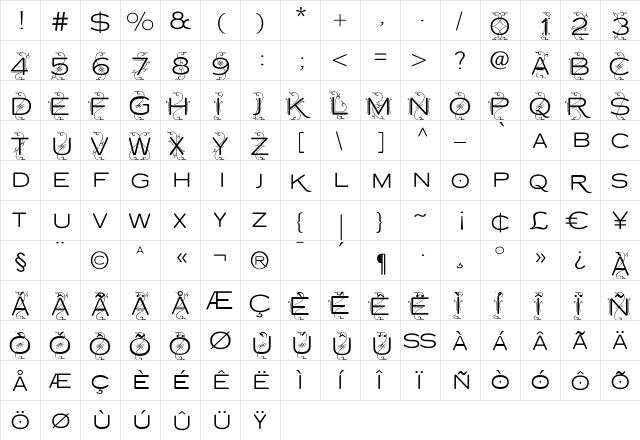
Copperplate Deco Light Round Regular
Design Context for Copperplate Deco Light Round Typeface
Copperplate Deco Light Round softens its letterforms with rounded terminals, giving it an approachable, friendly quality that works well in consumer-facing and digital contexts. The delicate stroke weight brings airiness and refinement to layouts.
Well-suited to UI design, mobile interfaces, and any brand that wants approachability without sacrificing clarity.
Font Pairing: Pairs well with a rounded or humanist sans for body copy, maintaining the friendly tone without relying on Copperplate Deco Light Round to carry extended reading.
Pro Tip: Use Copperplate Deco Light Round for UI elements, app interfaces, and anywhere a friendly, approachable tone needs to be maintained without sacrificing clarity.